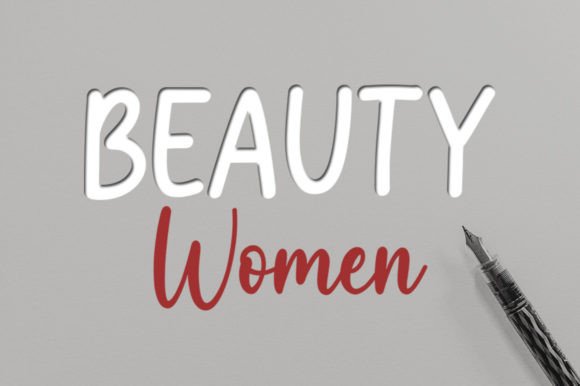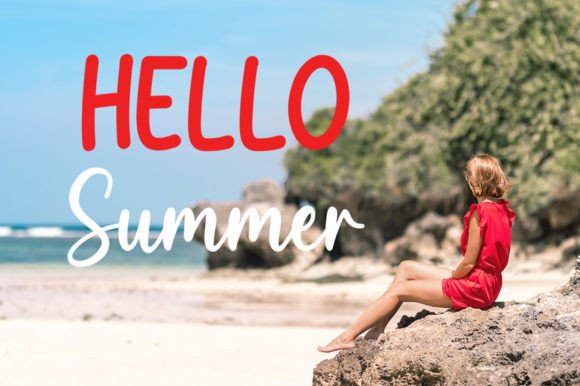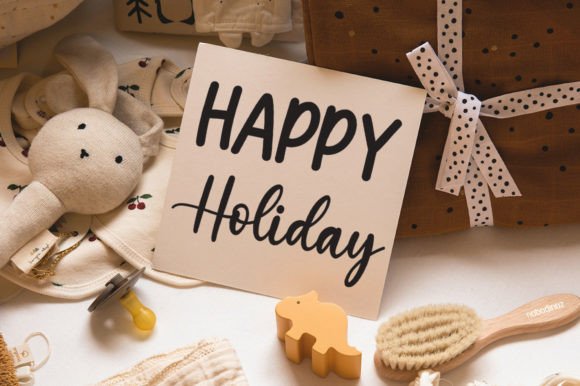
The Hello My Honey Duo Font Download is a delicate and flowing handwritten font duo featuring a script and a sans serif style. This combination offers flexibility, elegance, and balance, making it a versatile addition to any designer’s toolkit. With beautifully crafted characters, Hello My Honey adapts to a wide pool of creative needs, from invitations to branding. Because it is PUA encoded, you can access all glyphs and swashes with ease.
A Perfect Duo: Script and Sans Serif
The Hello My Honey script and sans serif fonts are designed to complement one another. As a result, they provide harmony between modern simplicity and handwritten elegance. Furthermore, this duo ensures versatility, allowing you to create both bold titles and refined details in the same project.
Perfect for Invitations and Stationery
Fonts that carry elegance always enhance stationery. The Hello My Honey Duo Font is ideal for wedding invitations, thank you cards, and event announcements. Because of its flowing handwritten strokes and neat sans serif pairing, it guarantees your stationery looks polished and stylish. In addition, it ensures every design feels thoughtful and memorable.
Branding and Logo Design with Hello My Honey Font
Typography sets the tone for any brand identity. The Hello My Honey Duo handwritten font is excellent for boutique logos, product packaging, and promotional materials. Its balance of script elegance and sans serif clarity communicates sophistication while remaining approachable. Therefore, it is particularly effective for fashion, lifestyle, and creative businesses.
Posters, Titles, and Editorial Projects
The Hello My Honey Duo Font Download also shines in posters, banners, magazines, and book covers. The sans serif provides readability, while the script adds warmth and personality. Consequently, it is a reliable choice for editorial projects seeking balance and style.
In today’s digital space, fonts must stay versatile. The Hello My Honey typeface integrates seamlessly into Instagram posts, YouTube thumbnails, Pinterest boards, and blogs. Because of its dual-style pairing, it ensures digital projects are modern, elegant, and engaging.
Why Designers Choose Hello My Honey Typeface
Designers value fonts that deliver versatility in one package. The Hello My Honey Duo Font Download maintains its flowing elegance and modern simplicity while staying easy to use. This makes it a favorite among both professionals and hobbyists. Moreover, its timeless design ensures it will remain relevant for future projects.